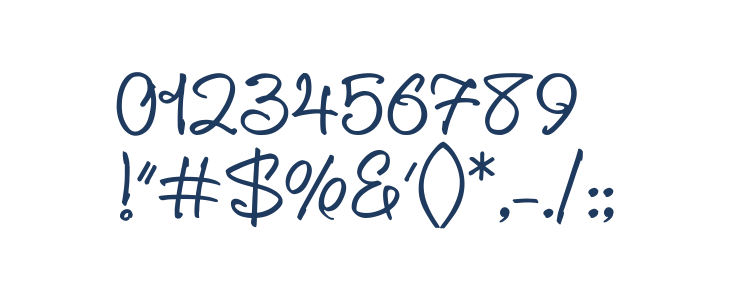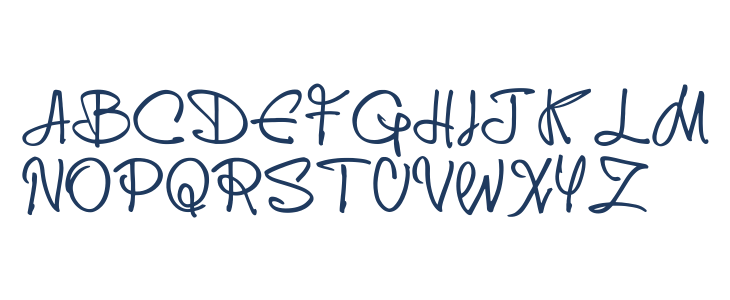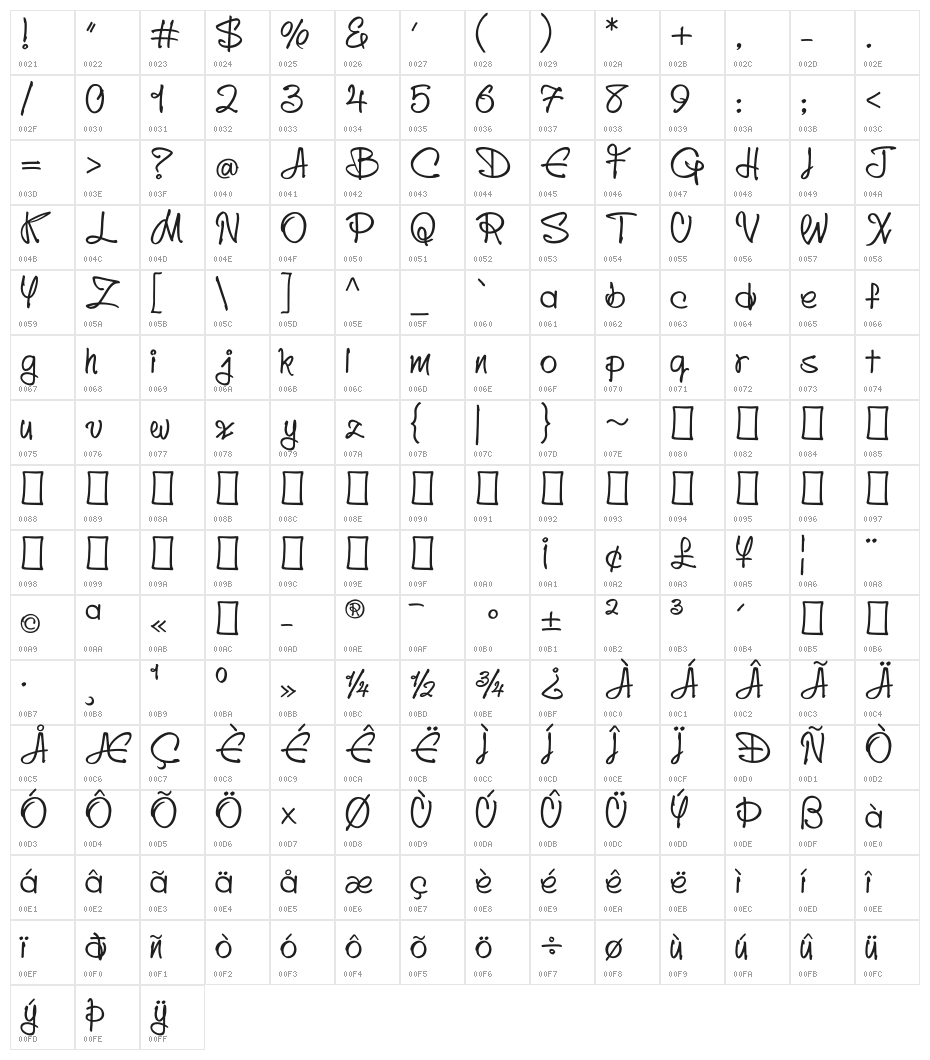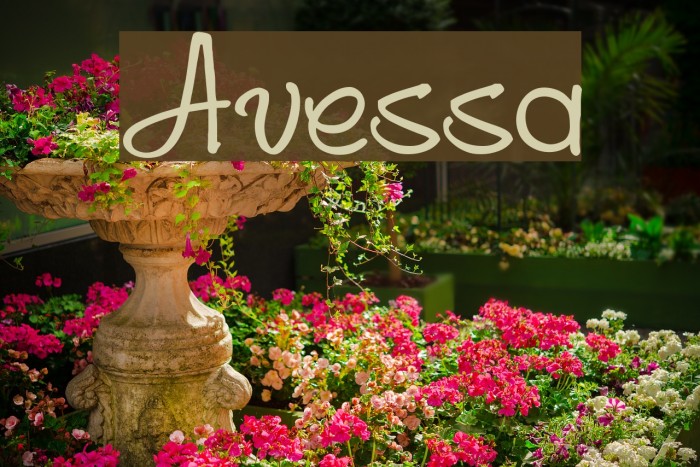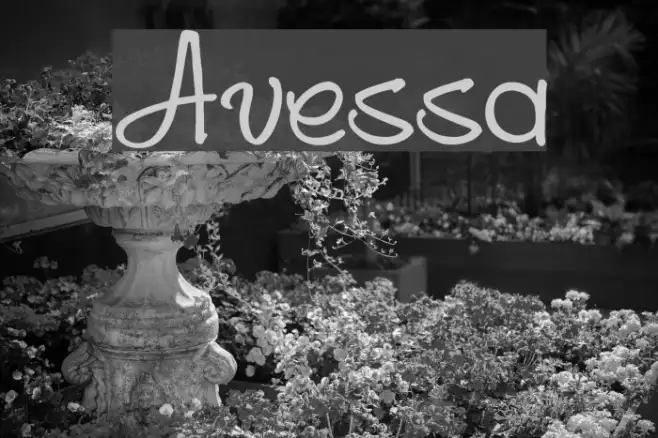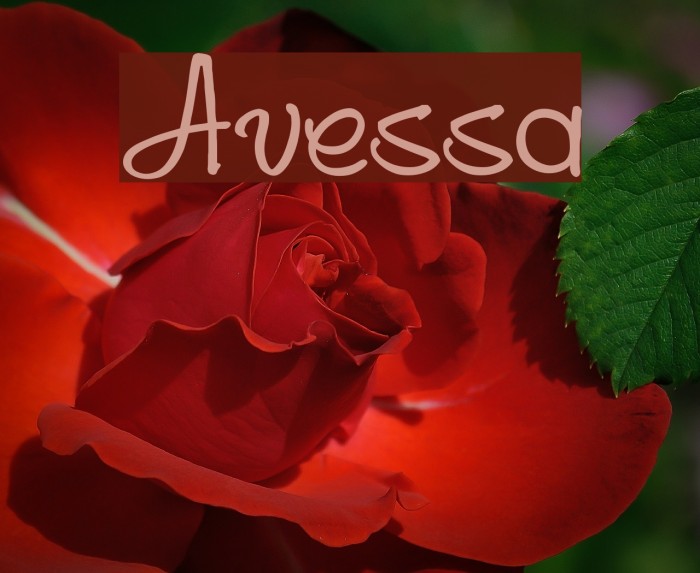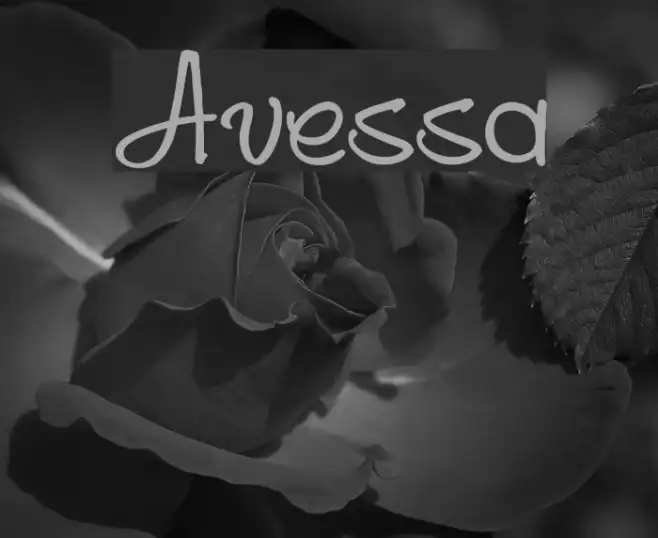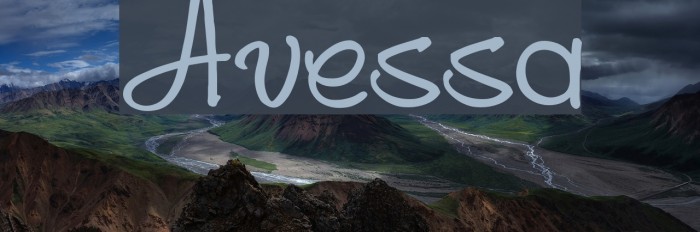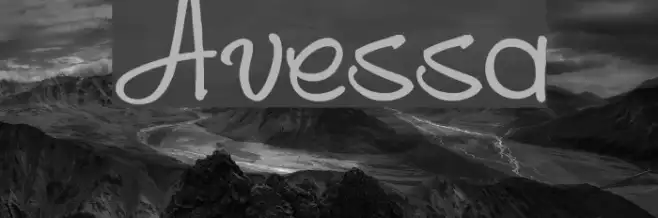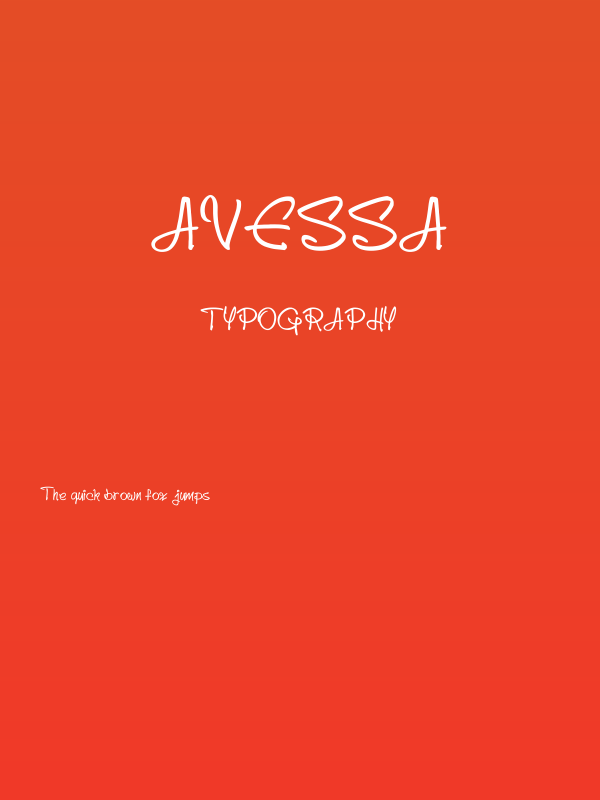
Avessa Font
Avessa Description
This font features a playful and energetic script style, characterized by its bold and flowing strokes. Each letter is crafted with a sense of movement, giving it a lively and dynamic appearance. The uppercase letters are slightly more structured, while the lowercase letters exhibit a more casual and freeform style. The numbers and special characters maintain the same whimsical quality, making the font versatile for various creative applications. The overall design is cohesive, with a consistent stroke weight that adds to its bold presence.
| Proposed Projects | Ideal for greeting cards, playful branding, children's books, and creative posters. |